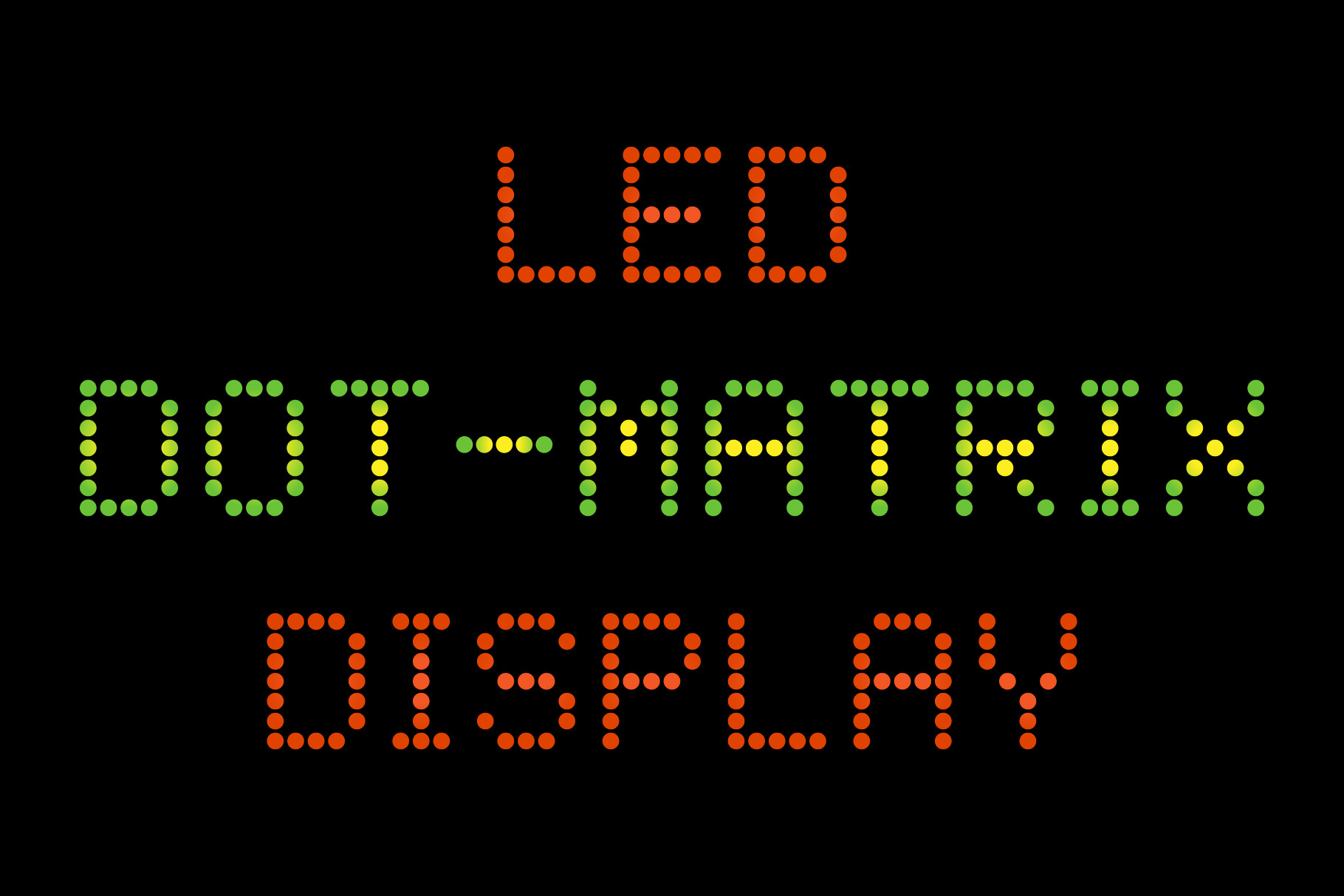
LED Dot-Matrix Display Font
Bring your digital designs to life with our premium LED Dot-Matrix Display Font. Inspired by classic electronic signs and retro technology, this glowing display font is perfectly crafted for sports scoreboards, airport flight boards, digital clocks, and cyberpunk UI interfaces. Whether you are designing a nostalgic tech layout, an arcade game screen, or a futuristic terminal, this authentic dot-matrix font delivers crisp, eye-catching digital typography for any creative project.